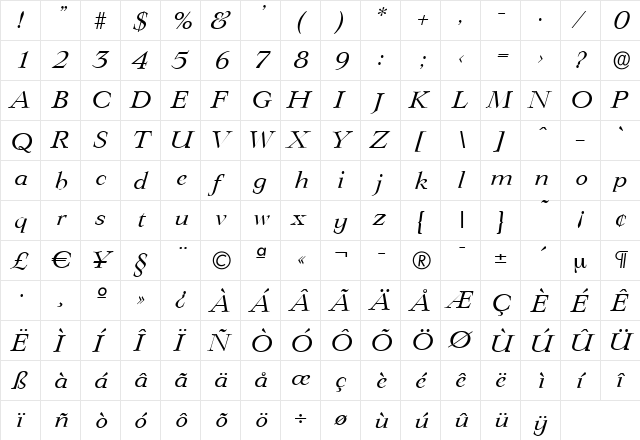
PhillipBecker Italic
Design Context for PhillipBecker Typeface
PhillipBecker is a composed and adaptable typeface that performs quietly and consistently across a wide range of design contexts. Its italic angle brings a sense of urgency and motion to the letterforms.
Pro Tip: Try PhillipBecker for annotation and caption copy alongside an upright companion — the contrast in angle creates a dynamic but ordered typographic system.